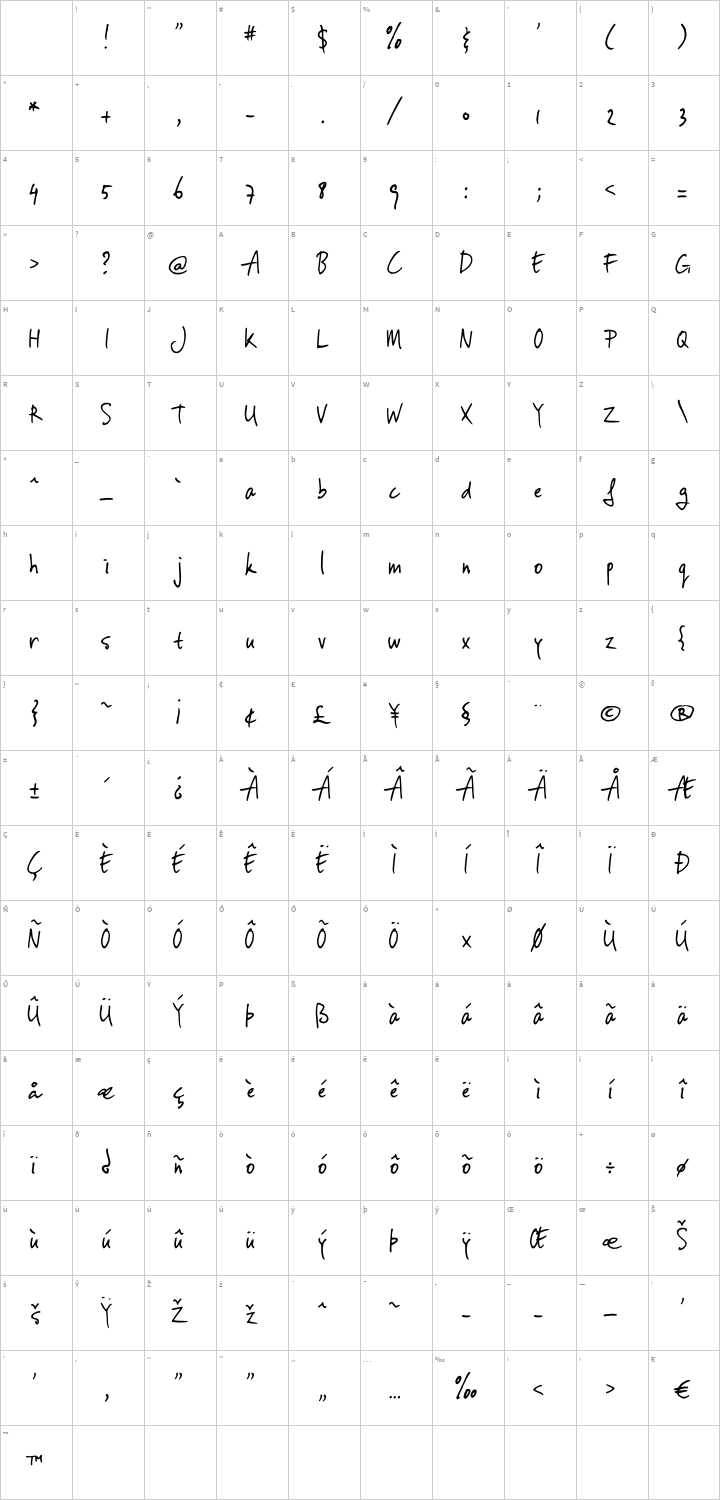
![]() vincHand Regular | 196 Glyphs |
Handwritten script font based on my good friend and painter Vincent Haenen’s handwriting.
Designed by: | JOEBOB graphics | |
Classification: | Handdrawn | |